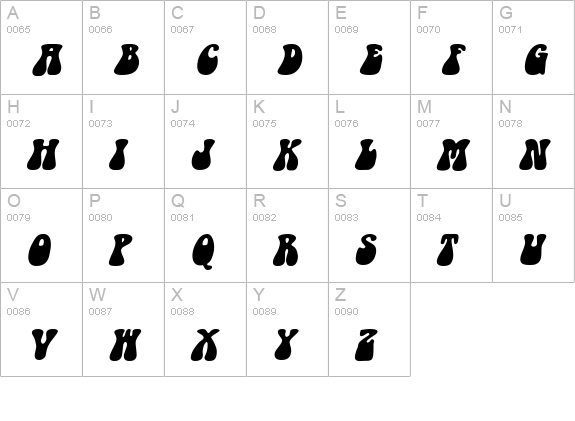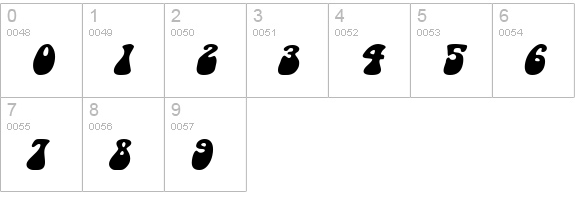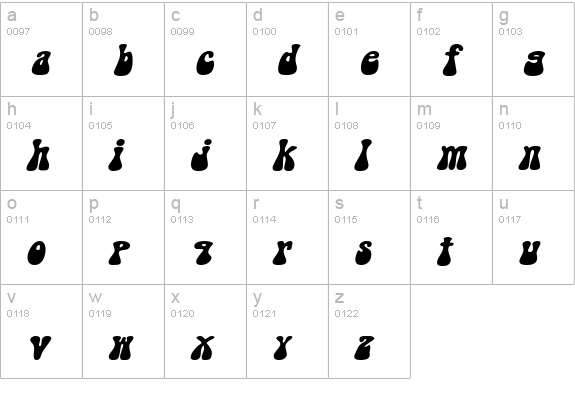
GroovyExtended Italic Font Details
GroovyExtended Italic is a distinctive, italic variant in the GroovyExtended typeface family \xE2\x80\x94 well suited to design and typography projects.
Introducing GroovyExtended Italic font, a trendy and stylish typeface perfect for adding a touch of flair to your designs. With its sleek and modern italic style, this font exudes a sense of sophistication and creativity. Whether you're working on a branding project, poster design, or any other creative endeavor, GroovyExtended Italic font is sure to make a statement. The best part? GroovyExtended Italic font is available for free download at FontsMarket.com, making it accessible to all designers looking to elevate their work with a touch of elegance. Don't miss out on the opportunity to enhance your projects with this versatile and eye-catching font. Upgrade your design game today with GroovyExtended Italic font.